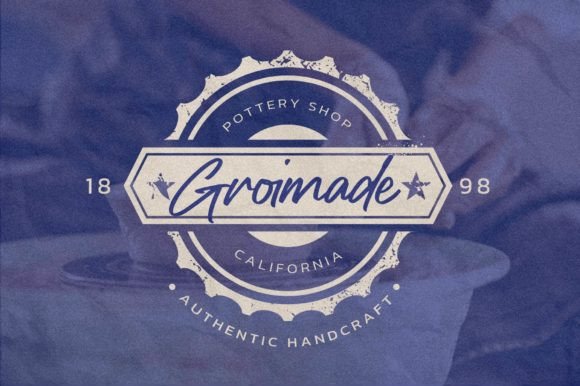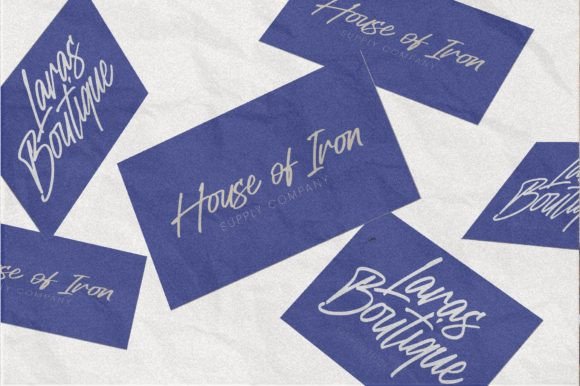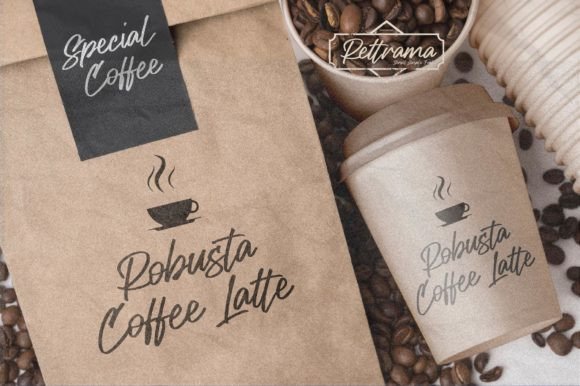
Introduction to Rettrama Font
Have you ever stared at a blank canvas, waiting for inspiration to strike? For many of us, that’s the moment when creativity comes alive. It’s the spark that sets our imagination ablaze, and we’re eager to bring our vision to life. Whether you’re working on a design project, crafting a digital art piece, or creating a marketing campaign, the right font can make all the difference. That’s where the Rettrama Font comes in – a dazzling script font that’s sure to elevate your creative project.
With its intricate details and high-quality design, the Rettrama Font is an exceptional addition to any font library. Its versatility allows it to seamlessly adapt to various design styles, making it an invaluable resource for designers. Whether you’re working on a project with a transparent background or need a font that exudes elegance, the Rettrama Font is sure to impress. And the best part? It’s available for free download, making it an accessible design resource for creatives of all levels.
Key Features of Rettrama Font
- High-quality font designed for creative projects, ideal for designers and artists.
- Comes with a transparent background, allowing for seamless integration with various design elements.
- Features a unique and elegant design, perfect for use in branding, typography, and graphic design projects.
- Includes a range of glyphs and characters, including international characters, for versatility in multilingual projects.
Honest Review: Rettrama Font
As a designer, I’m always on the lookout for high-quality design resources to elevate my creative projects. The Rettrama Font is one such resource that caught my attention.
- ✨ The Rettrama Font is incredibly versatile, with a wide range of styles and weights that can be used for both modern and traditional designs.
- ✨ The transparent background option is a nice touch, allowing designers to easily layer the font over images or other design elements.
- ⚠️ The font may not be suitable for small-scale text, as the strokes can appear a bit rough at very small sizes.
- ⚠️ Some designers may find the font’s aesthetic a bit too modern or trendy, which may not appeal to those working in more conservative design fields.
Overall, the Rettrama Font is a great addition to any designer’s toolkit, offering a high-quality, free design resource that can add a touch of creativity to any project.
Experiment with different font sizes and styles to create a visually appealing design. You can also pair the Rettrama Font with other fonts to create a harmonious design.
The Rettrama Font is commonly used in creative projects such as logo design, branding, and typography-based art. Its transparent background feature makes it ideal for designing graphics with complex backgrounds.